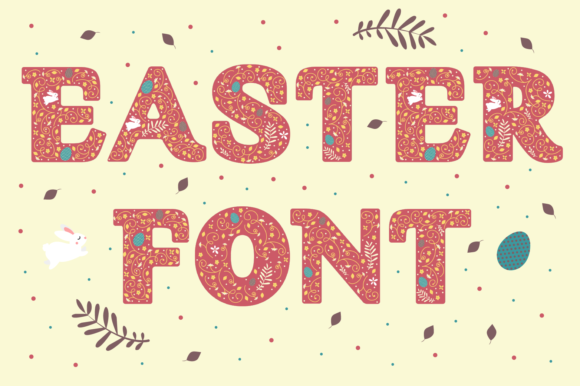
Easter Font: Elevate Your Designs with Festive Flair
Easter is a time of renewal, rejuvenation, and celebration. As designers and crafters, we love to infuse our creations with the spirit of the season. That’s where the Easter Font comes in – a stunning example of modern typography that’s bursting with Easter decorations. In this article, we’ll dive into the world of Easter Font and explore how it can make your designs even more festive and engaging.
A Gorgeous Example of Modern Typography
The Easter Font is a masterpiece of contemporary typography. Its clean lines, elegant curves, and playful flourishes make it the perfect choice for designers seeking to add a touch of sophistication and whimsy to their work. With its highly legible and versatile design, Easter Font is suitable for a wide range of applications, from Easter-themed party invitations and decorations to social media graphics, blog posts, and more.
Easter Decorations Galore
As its name suggests, the Easter Font features an abundance of Easter decorations that will make your designs pop. From adorable Easter bunnies and eggs to spring flowers and butterflies, this font is packed with festive elements that will add a delightful touch to your creations. Whether you’re designing for Easter, spring, or simply want to inject some fun and playfulness into your work, Easter Font has got you covered.
Whether you’re a professional designer or a crafter looking for inspiration, Easter Font is an excellent choice. Its versatility and customizability make it ideal for a wide range of projects, including:
- Easter party invitations and decorations
- Spring-themed crafts and DIY projects
- Custom gifts, such as Easter eggs and bunny-themed merchandise
Tips for Using Easter Font
- Experiment with different font sizes and colors to create visual interest and hierarchy.
- Combine Easter Font with other fonts to create a unique and eye-catching typography.
- Use Easter Font’s decorative elements to add a playful touch to your designs.
- Unique and festive design that’s perfect for Easter and spring-themed projects.
- Highly legible and versatile, making it suitable for a wide range of applications.